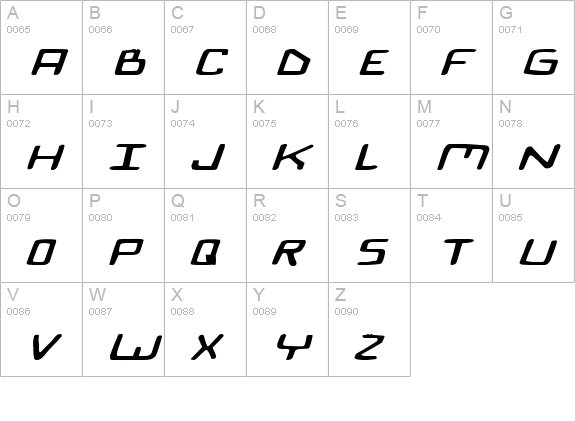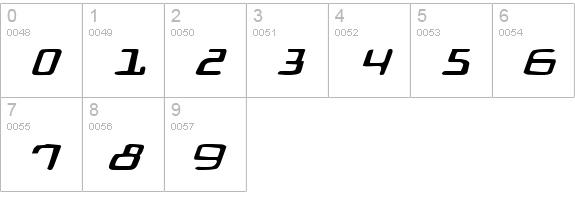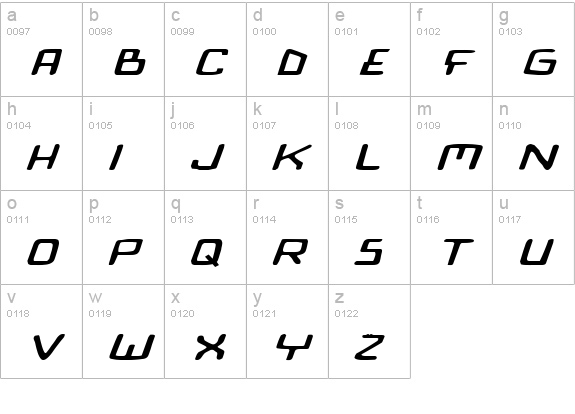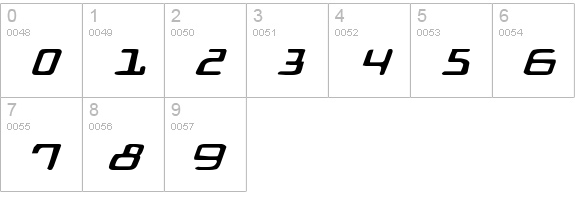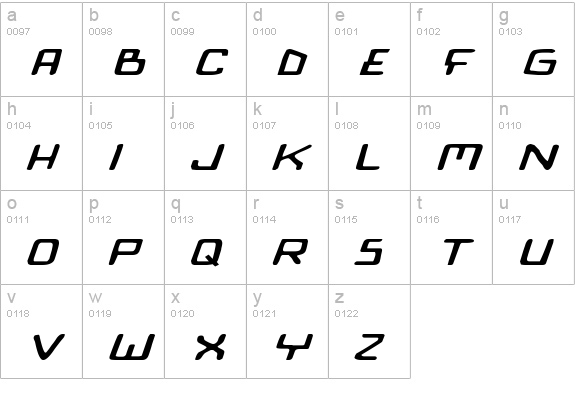
Bionic Comic Exp Italic is a distinctive, italic variant in the Bionic typeface family \xE2\x80\x94 well suited to design and typography projects.
The Bionic Comic Exp Italic font is a dynamic and energetic typeface that adds a futuristic flair to any design project. Its bold and slanted letterforms exude a sense of power and innovation, making it a perfect choice for comic books, posters, and branding materials. The unique blend of classic comic book style with a modern bionic twist gives this font a distinctive edge that will make your designs stand out. And the best part? Bionic Comic Exp Italic is available for free download at FontsMarket.com! This means you can easily access this eye-catching font and incorporate it into your projects without any cost. Don't miss out on the opportunity to add a touch of sci-fi coolness to your designs with Bionic Comic Exp Italic - get your free download today!